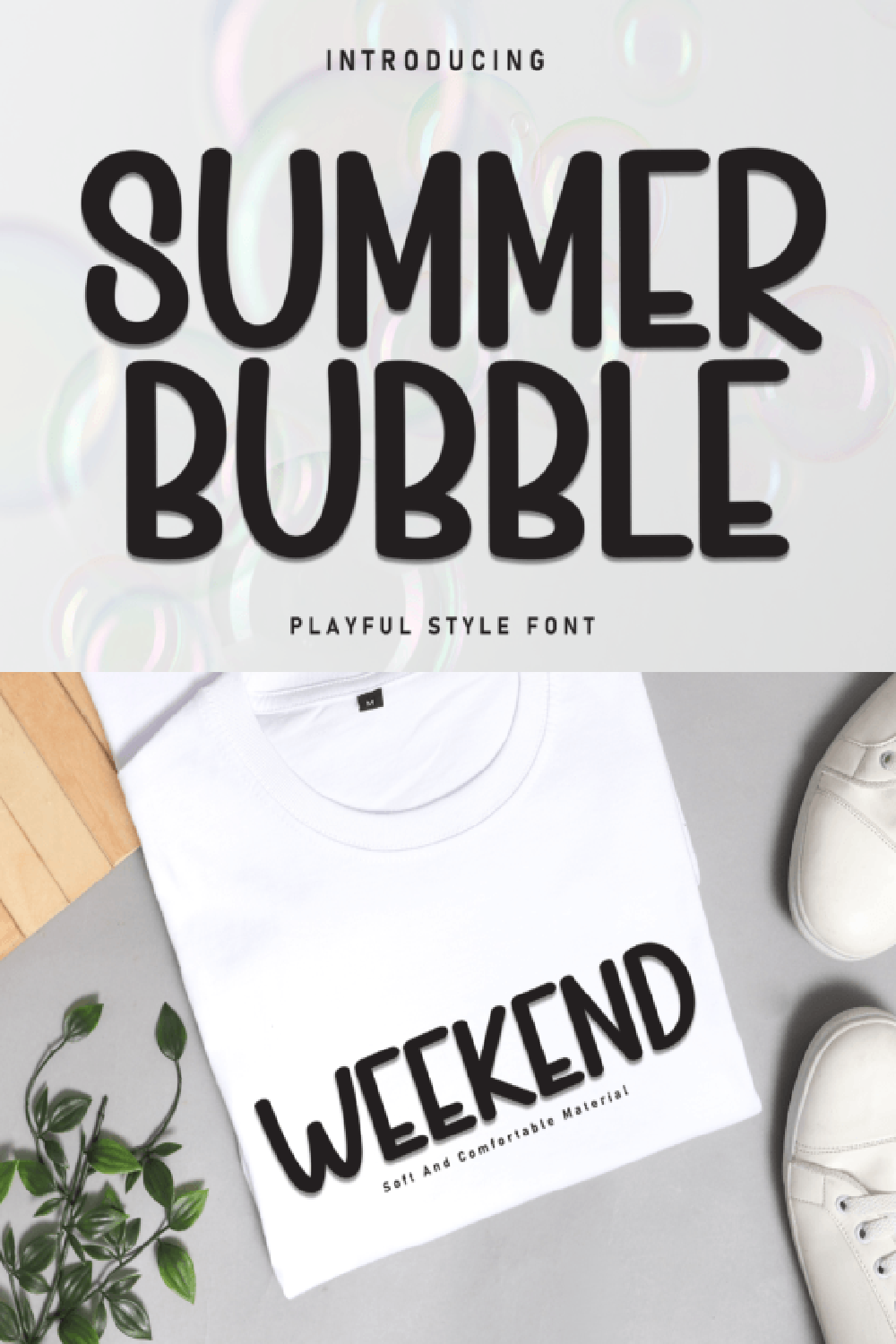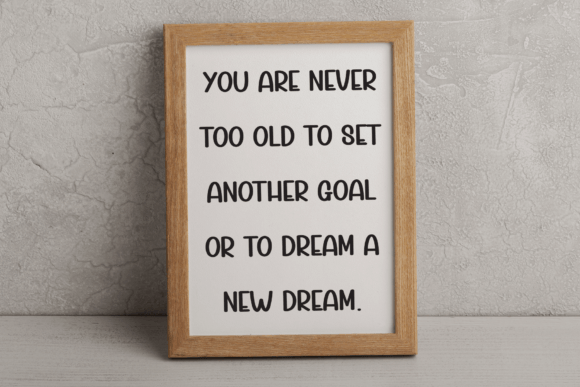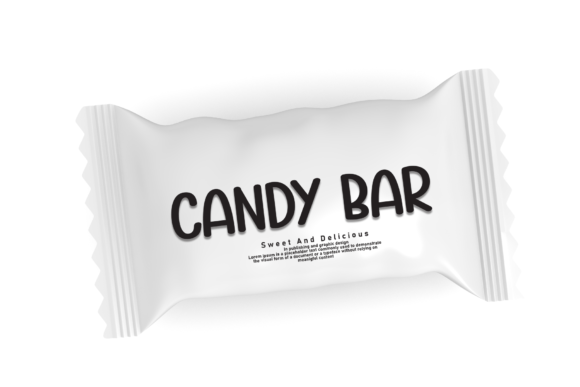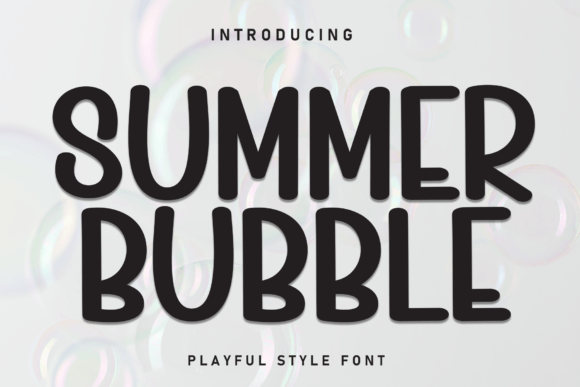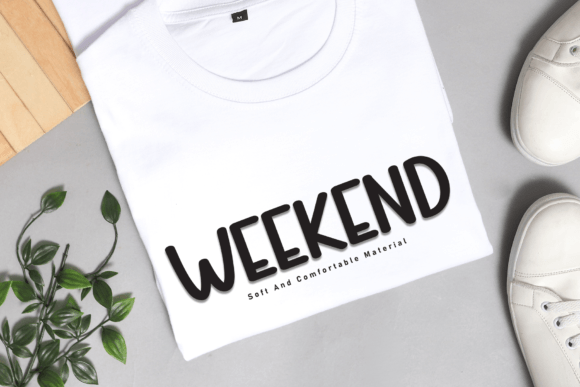
Summer Bubble Font
About the Summer Bubble Font
From logos to headlines, the Summer Bubble Font is the perfect choice for making a lasting impression. Introducing a charming and amicable handwritten display font brimming with personality – a pure embodiment of sweetness and friendliness. This delightful font spreads an inviting charm, making it an excellent pick for crafting exquisite wedding invitations, heartwarming cards, and every design craving a playful, fun-filled touch. Infuse joy into your creations and let the quirky quirkiness of this font fill every corner with an ambiance of breezy fun and light-hearted enthusiasm.